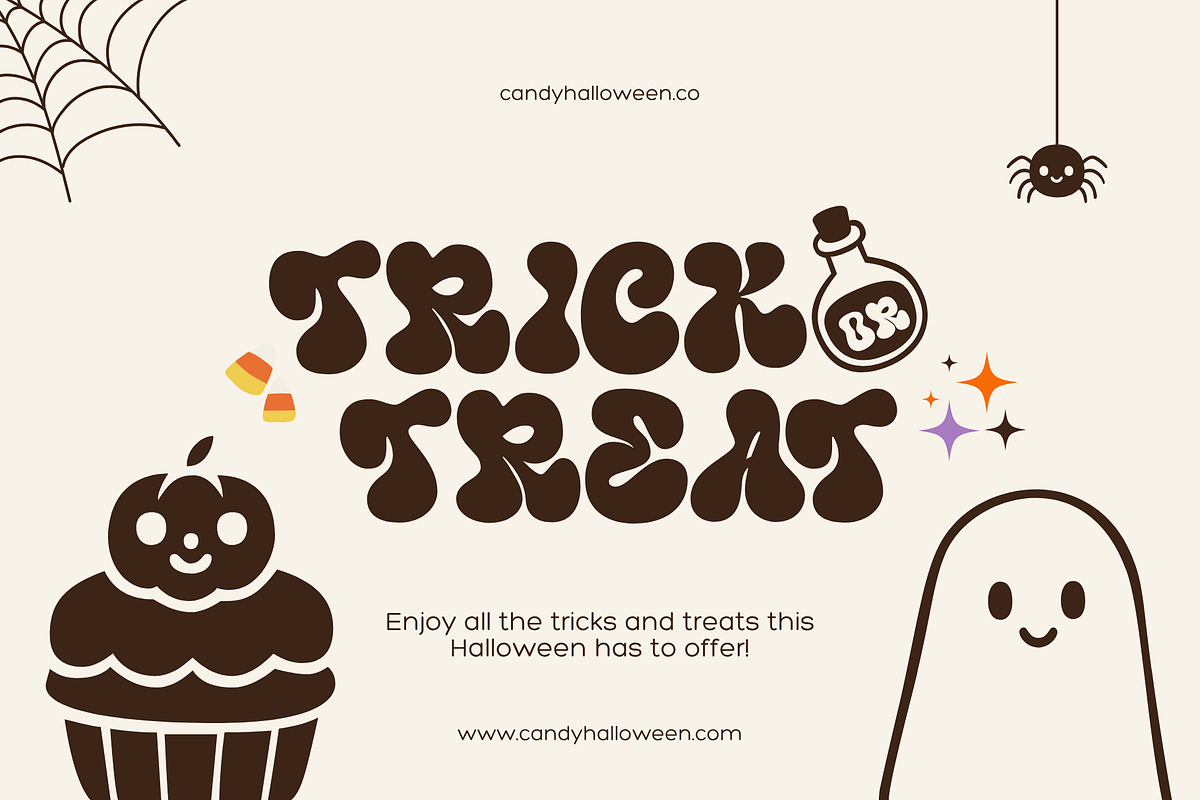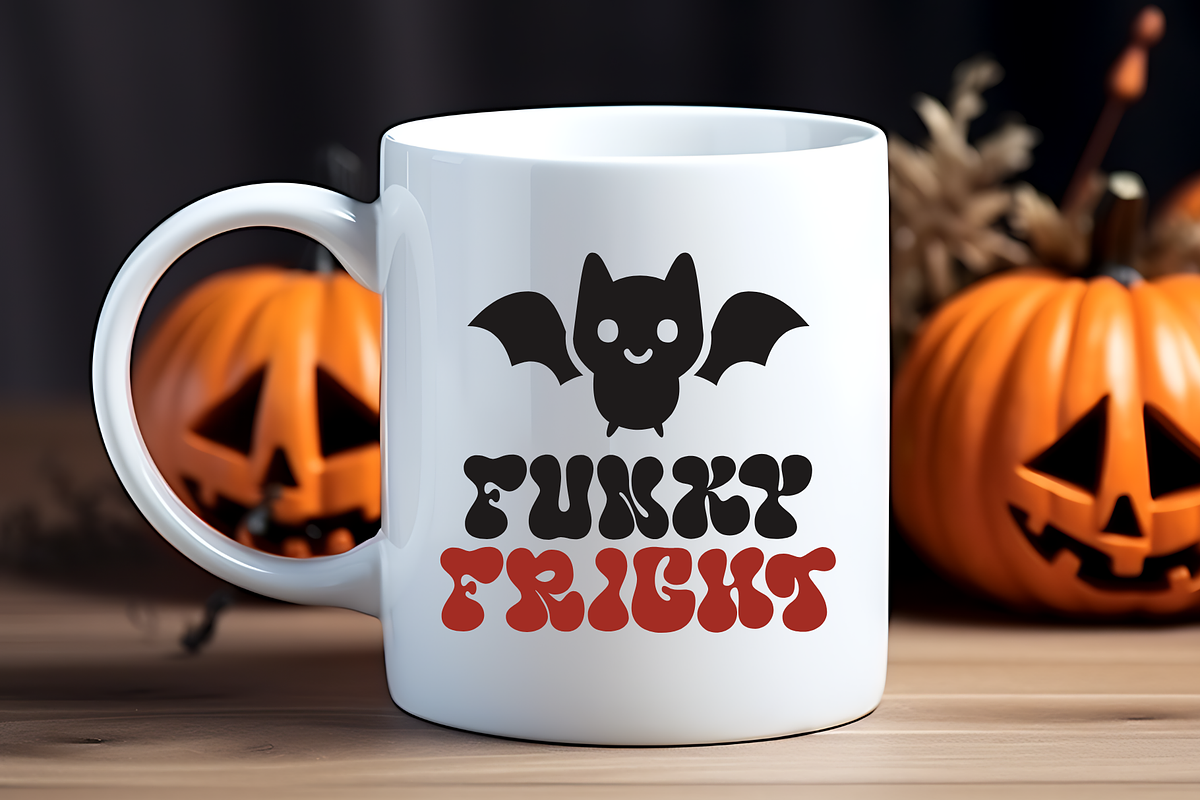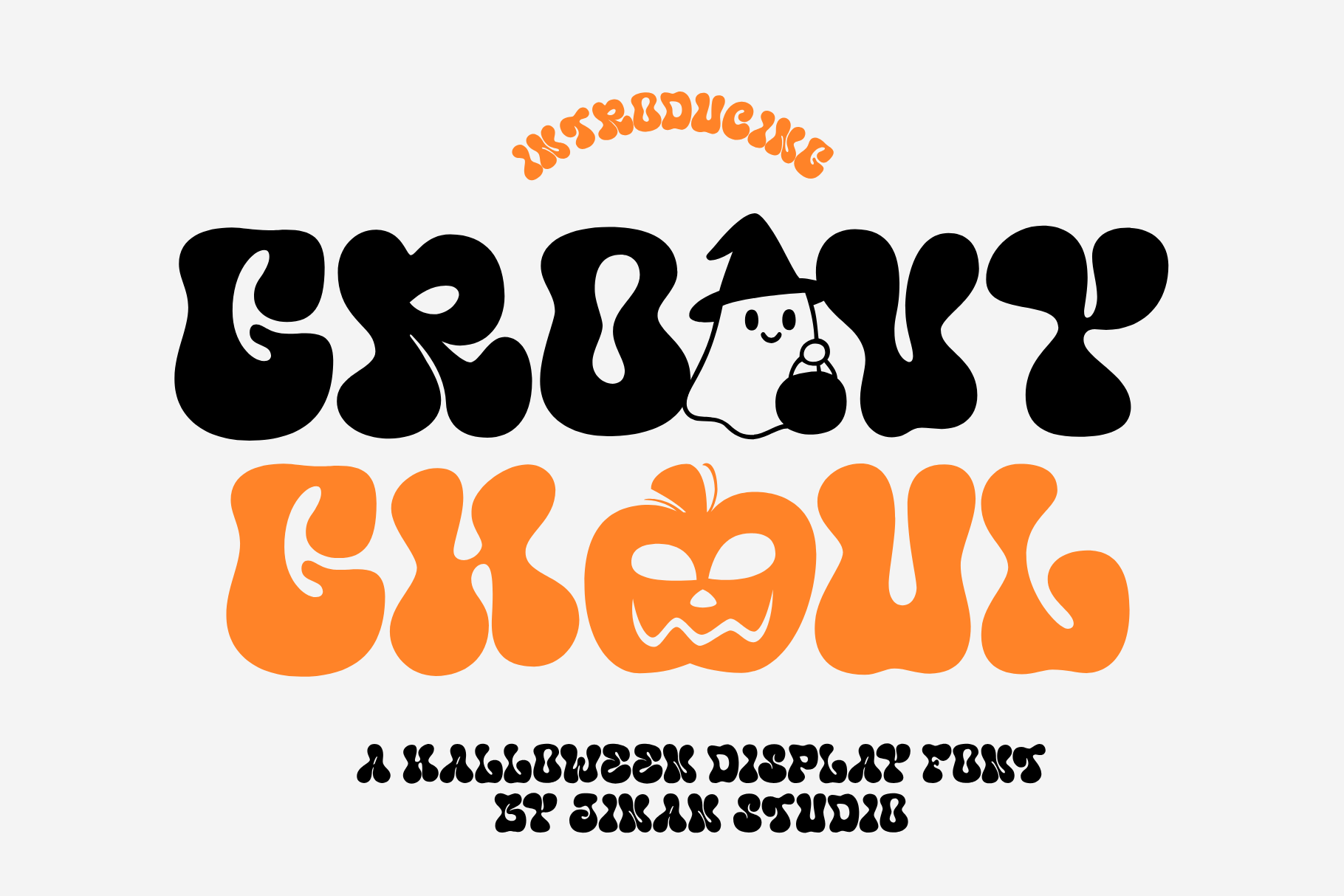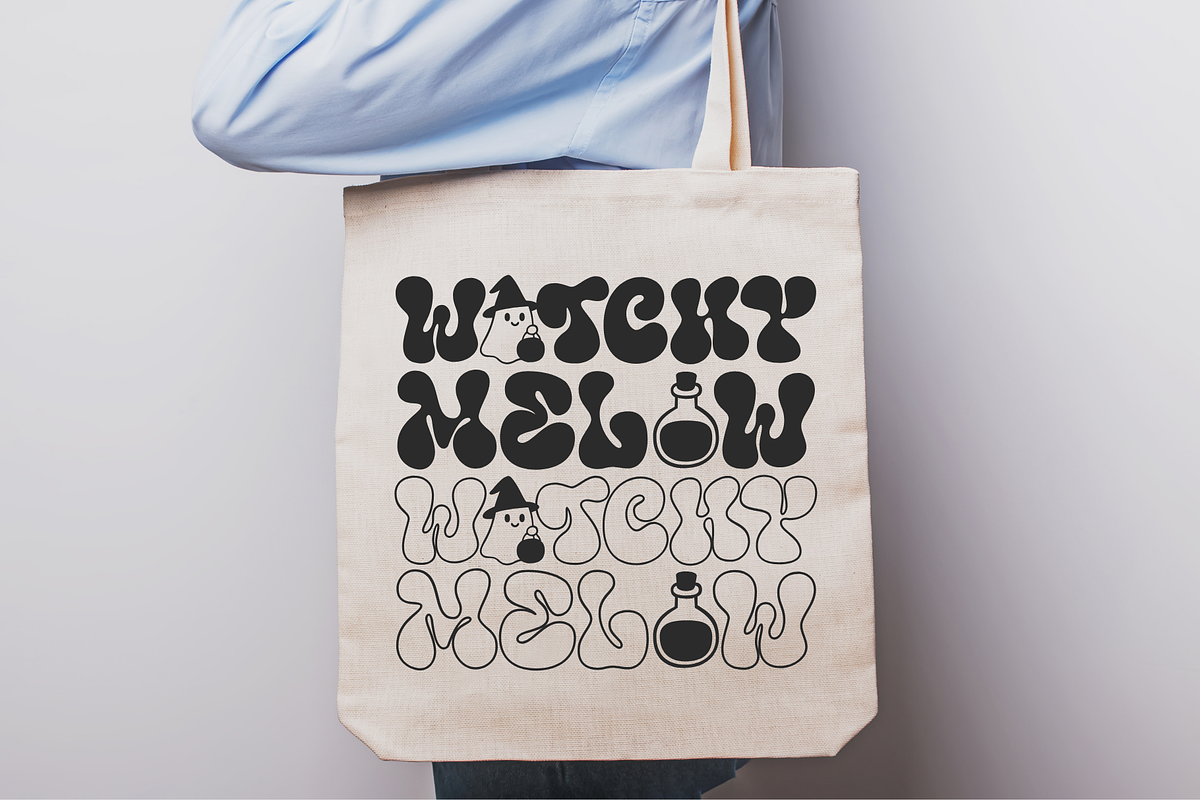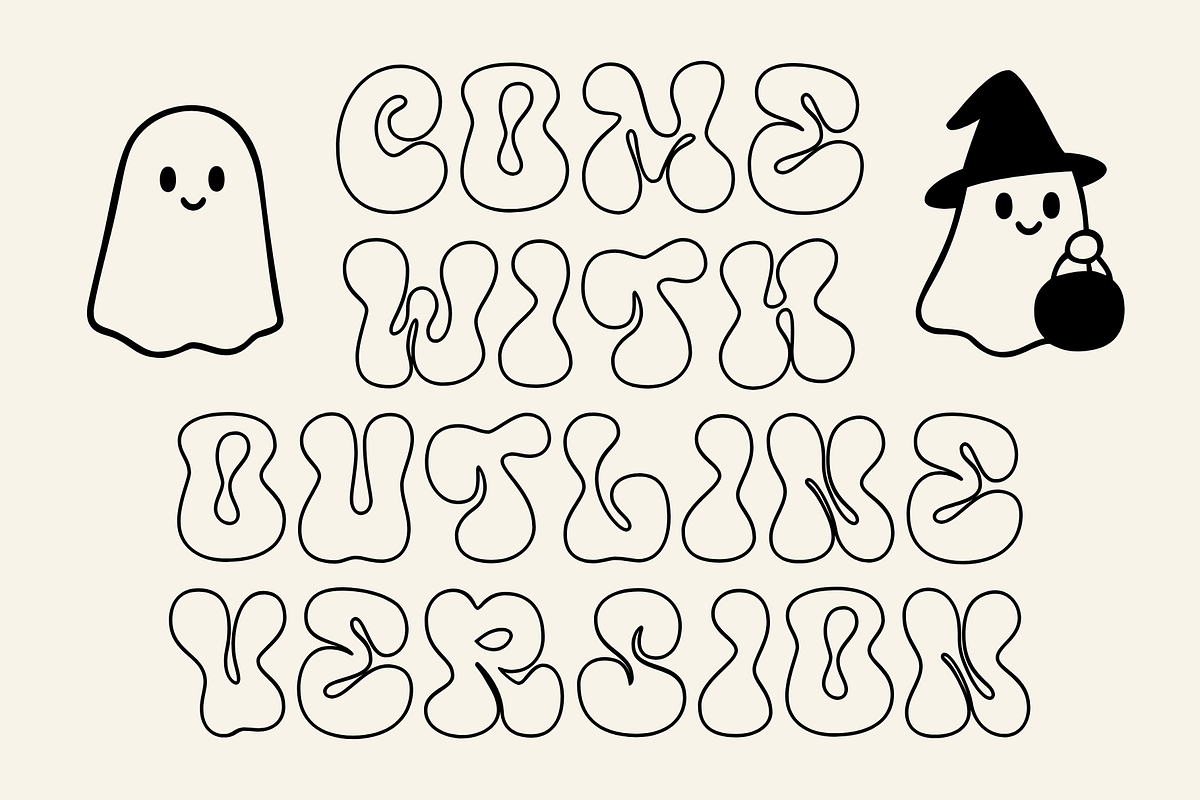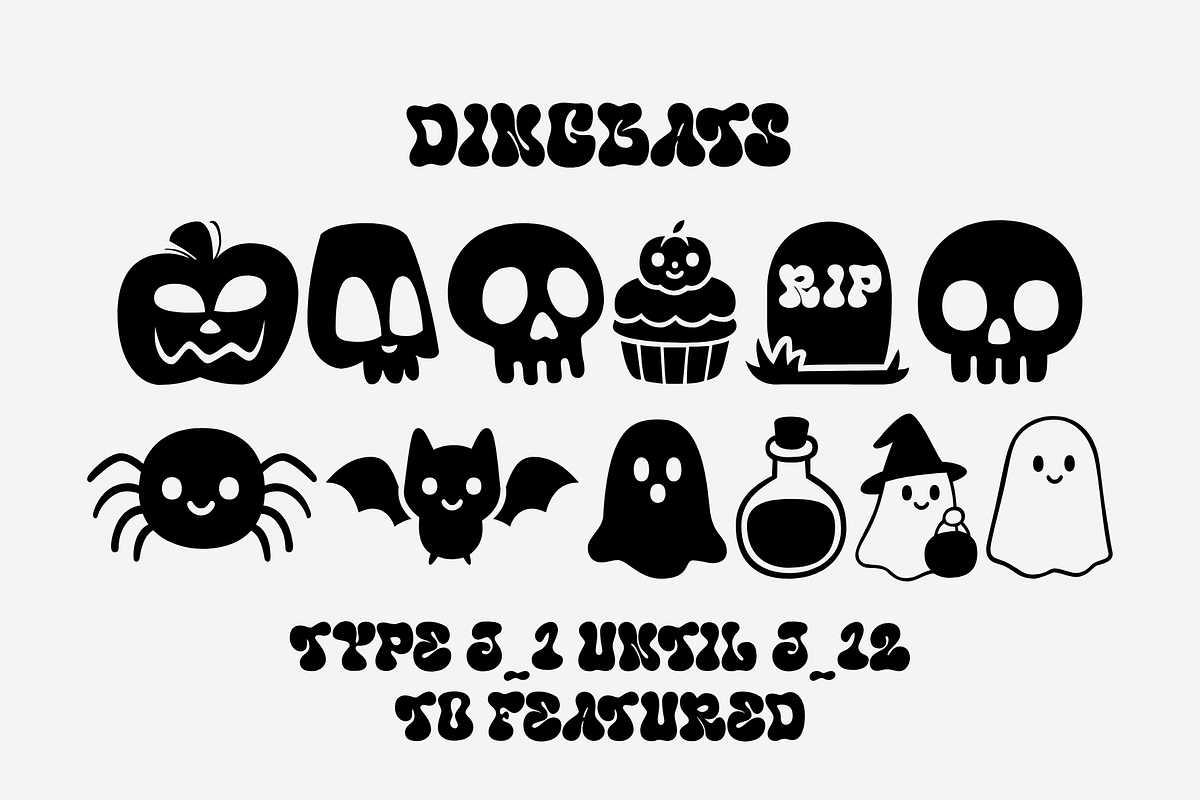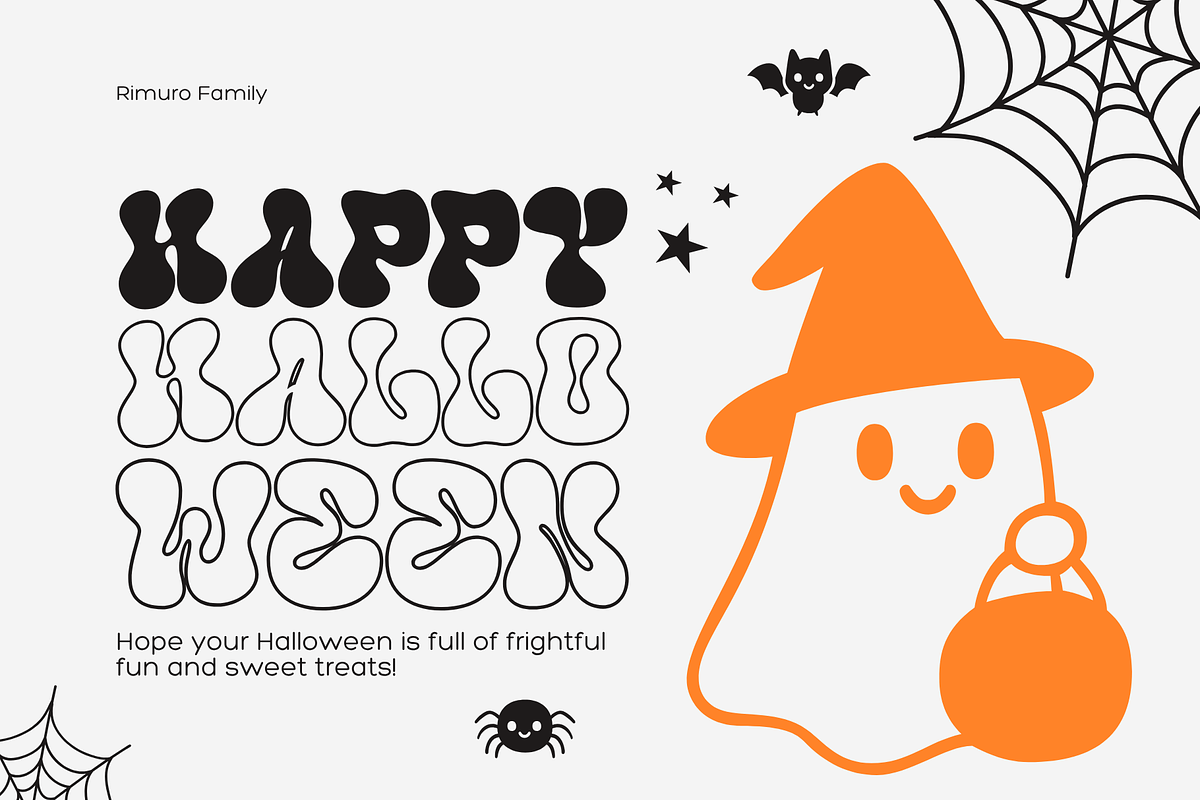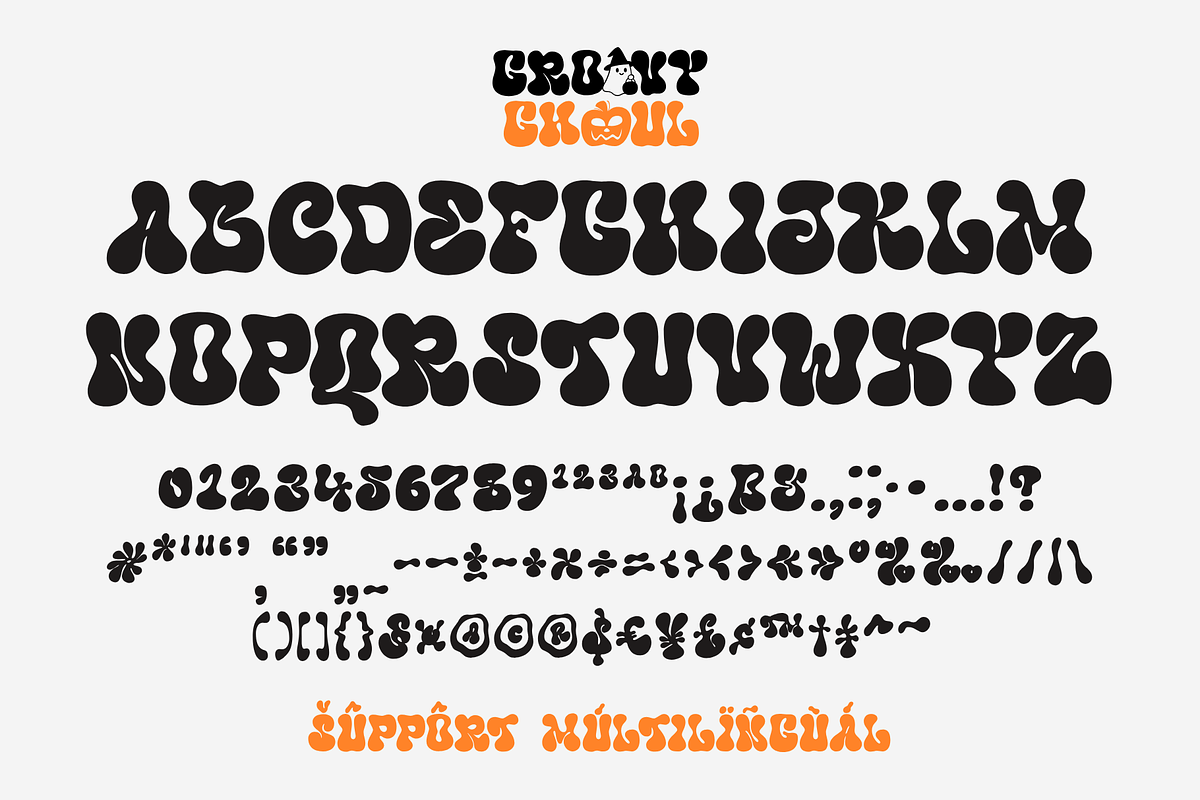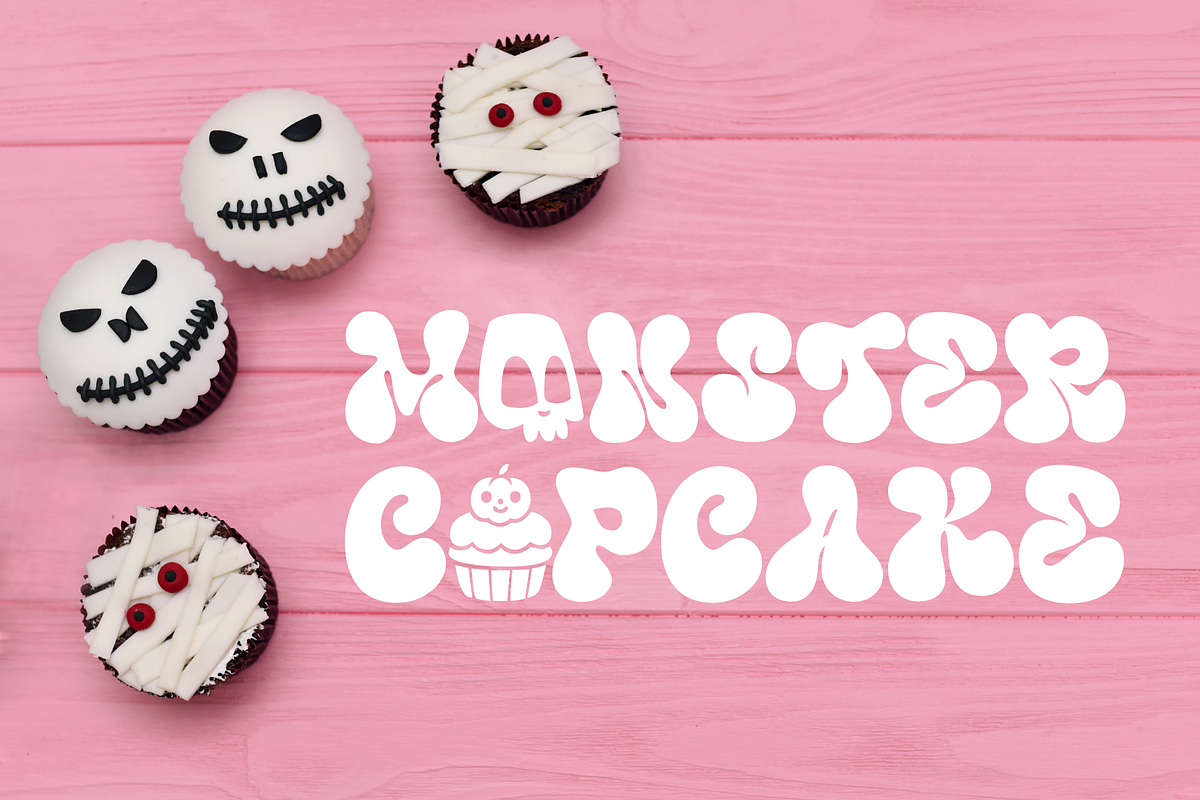
Groovy Ghoul Display Font
Groovy Ghoul is a cute and spooky Halloween display font featuring bold, bubbly, and wavy letterforms with a fun melted look. Its playful shapes create a unique groovy Halloween aesthetic that feels spooky without being too scary.
Perfect for Halloween crafts, Cricut and cutting machine projects, stickers, T-shirts, party decorations, invitations, posters, and seasonal designs. Groovy Ghouls is a fun choice for adding a playful Halloween touch to both kids’ and adults’ creative projects.
Allcaps
Number, symbol, and punctuation
Dingbats
Outline Version
Type j_1 until j_12 to features Dingbats